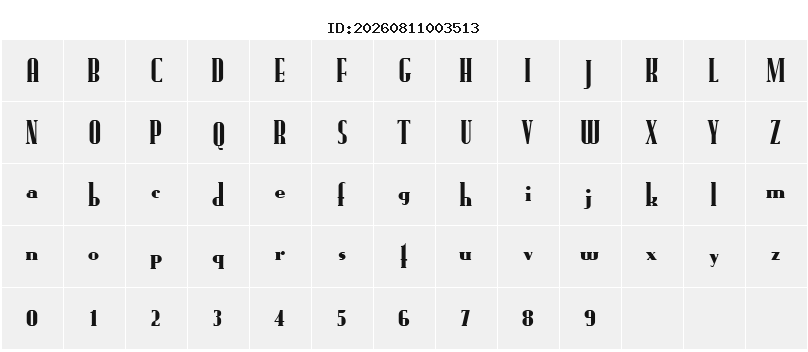
About Rundfunk.ttf
Rundfunk.ttf is a modern, elegant sans-serif font designed for ultimate readability and visual harmony. Perfect for branding, headlines, web design, and print materials.